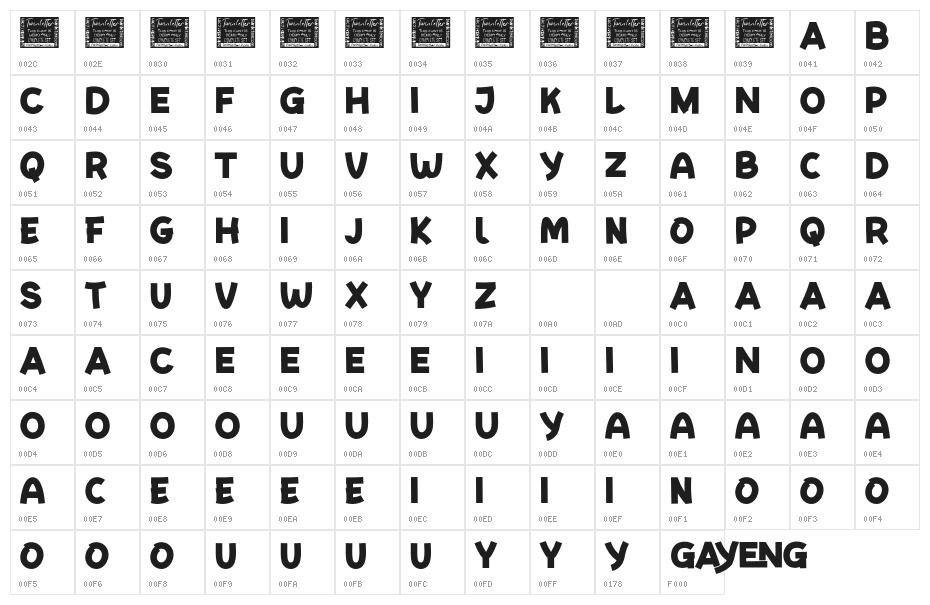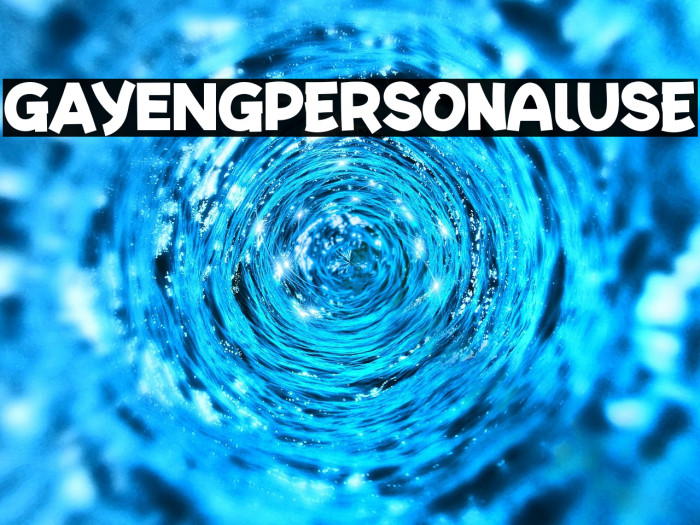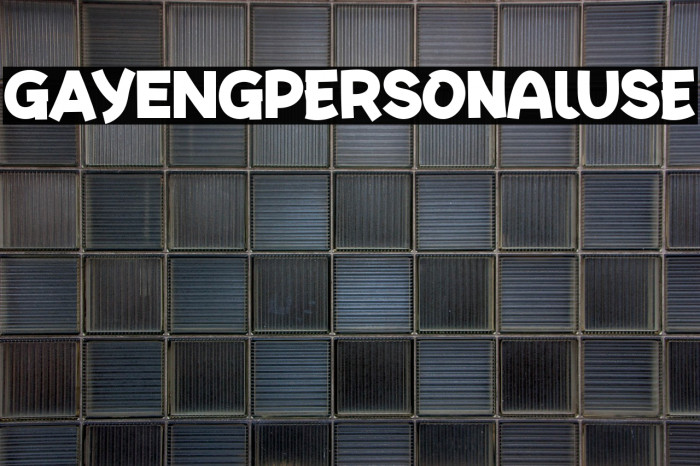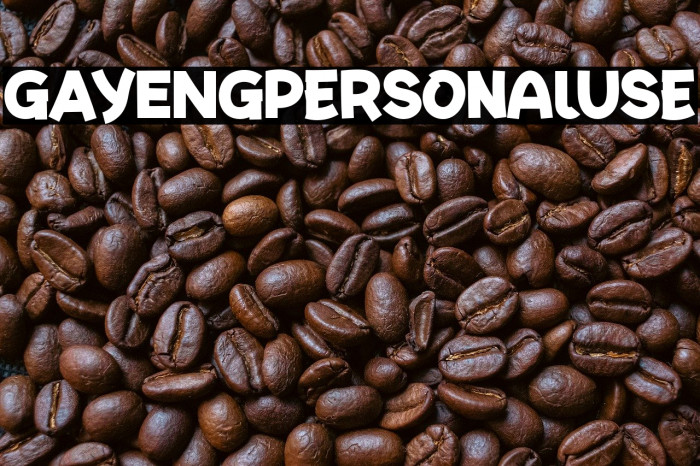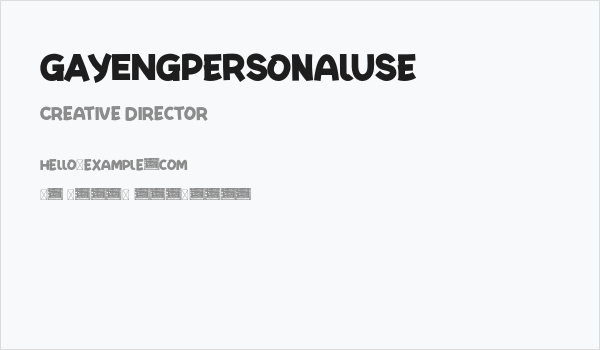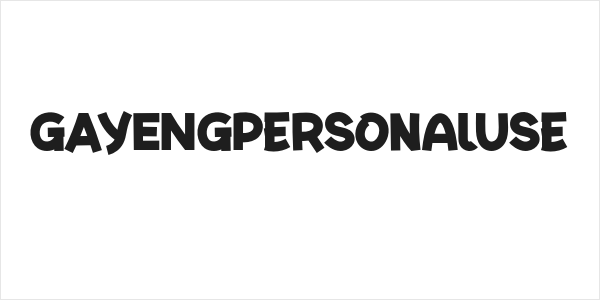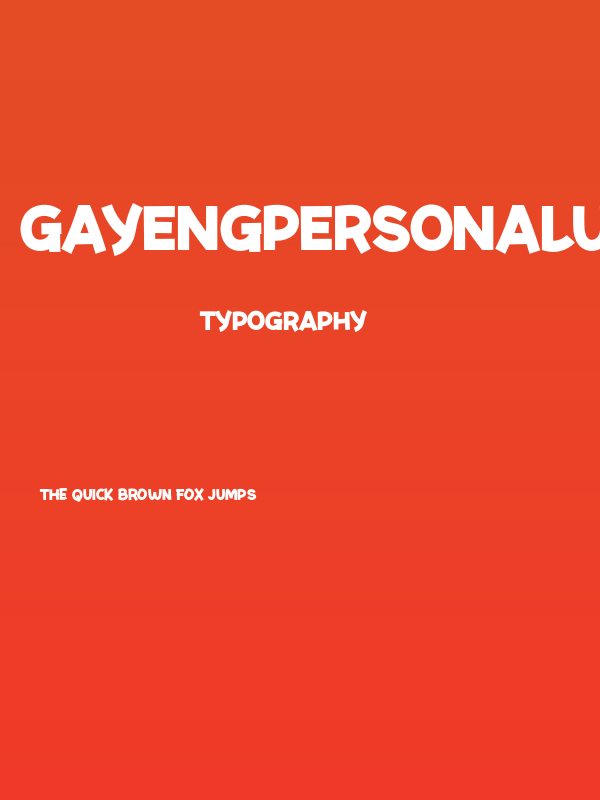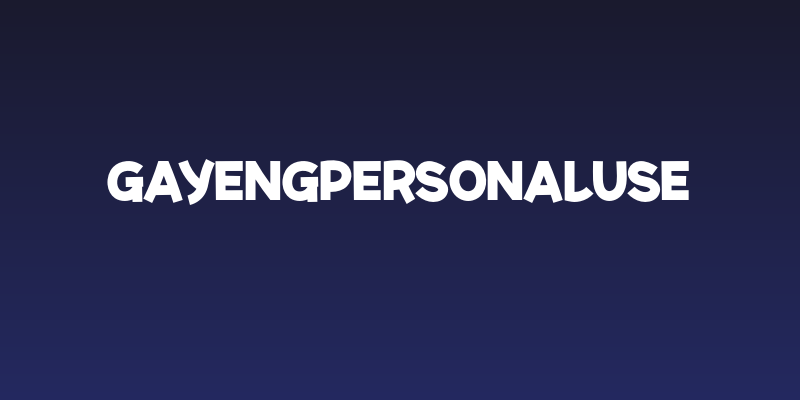
GAYENGPersonalUse Font
GAYENGPersonalUse Description
This font features a bold and playful style with a strong presence. The letters are characterized by their thick strokes and slightly irregular shapes, giving them a hand-drawn, whimsical appearance. The uppercase letters are particularly striking, with a sense of movement and energy. The overall design is informal and friendly, making it suitable for creative and fun projects. The font's boldness ensures readability, while its unique style adds a touch of personality.
| Overall Style | Playful, Whimsical |
| Proposed Projects | Ideal for children's books, playful branding, posters, and creative designs. |